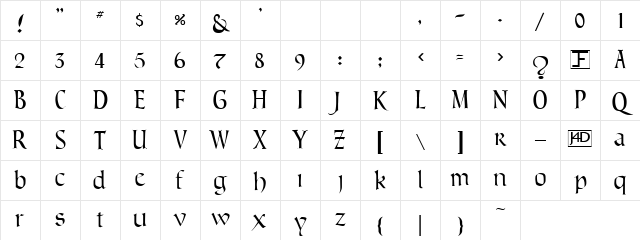
Lombardic Narrow Normal
Design Context for Lombardic Narrow
Lombardic Narrow is a composed and adaptable typeface that performs quietly and consistently across a wide range of design contexts. Its narrow stance lets it pack a punch even in space-constrained designs.